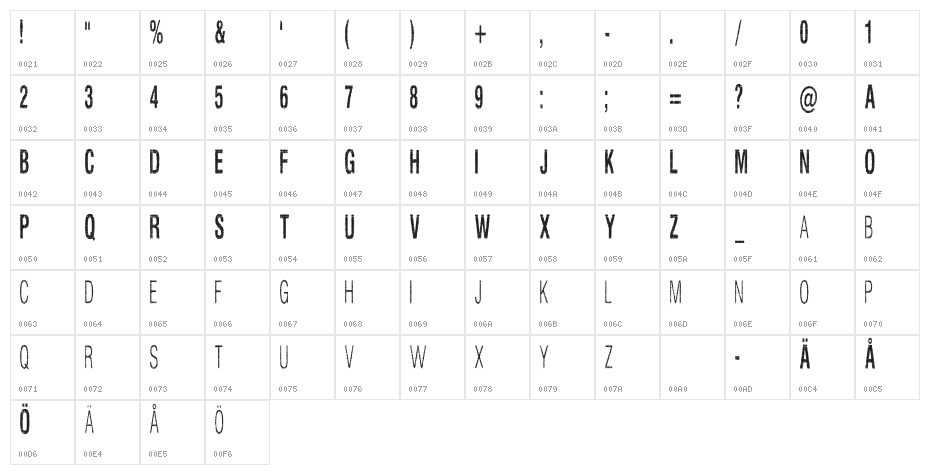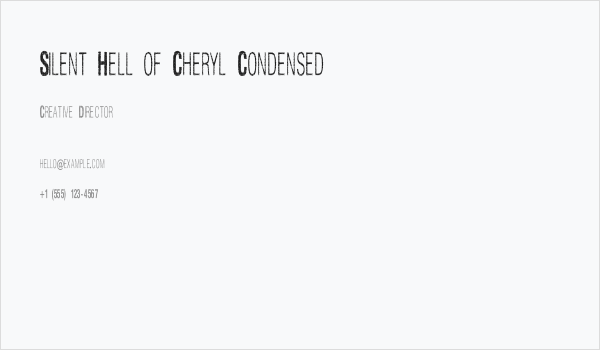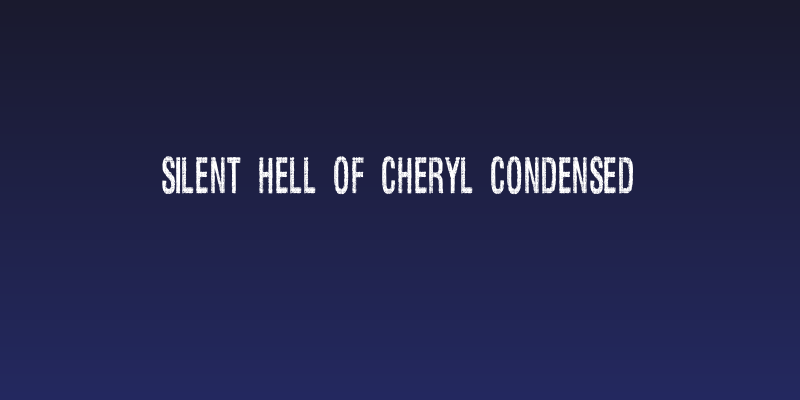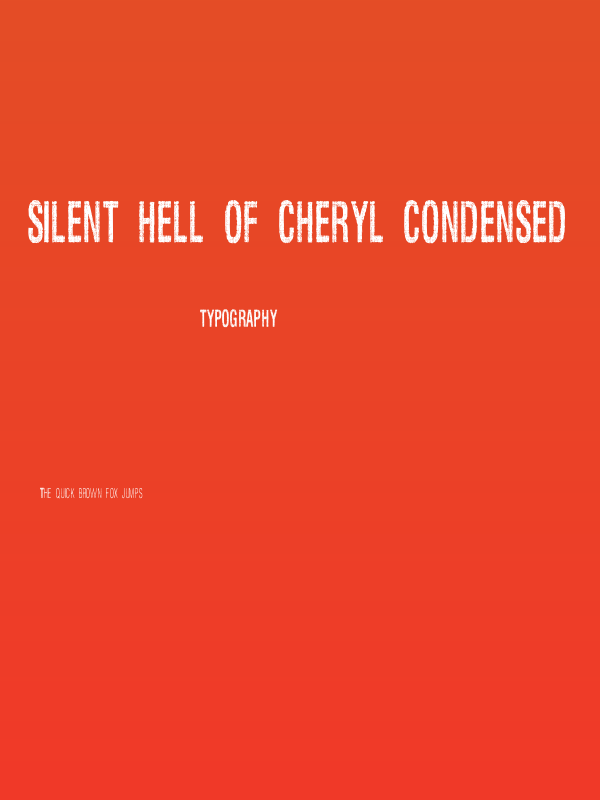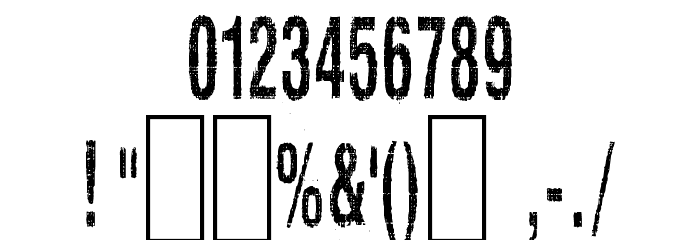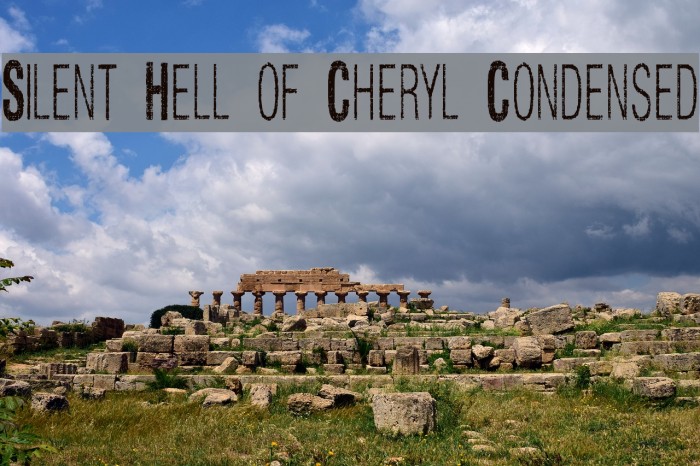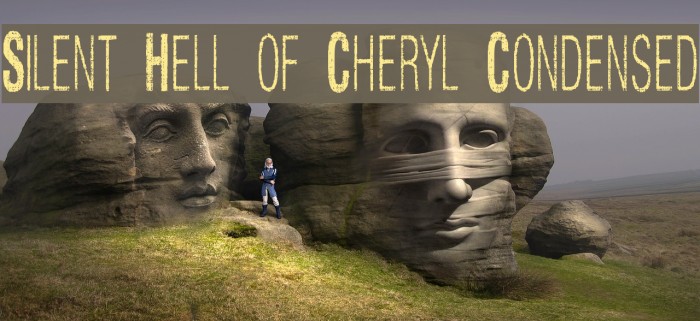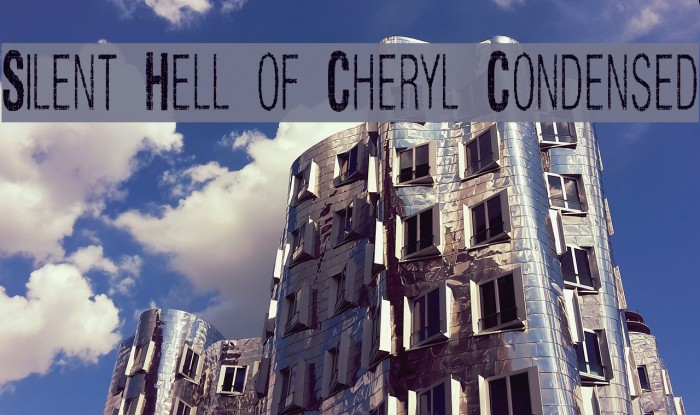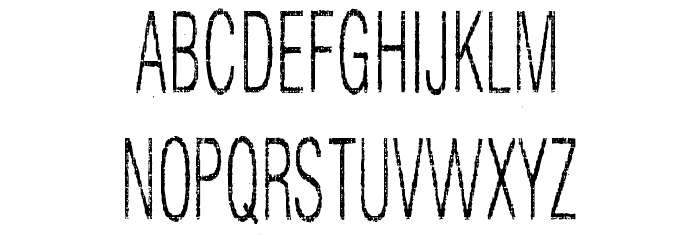
Silent Hell of Cheryl Condensed Font
Silent Hell of Cheryl Condensed Description
This font features a distressed, textured appearance that gives it a rugged and worn look. The uppercase letters are bold and condensed, creating a strong visual impact. The lowercase letters maintain the same condensed style, ensuring consistency across the typeface. Numbers and special characters follow the same design, making them suitable for various applications. The font's unique style is reminiscent of vintage or grunge aesthetics, making it ideal for projects that require a bold, eye-catching display with a touch of nostalgia.
| Proposed Projects | Ideal for posters, album covers, branding, and any design needing a bold, vintage touch. |